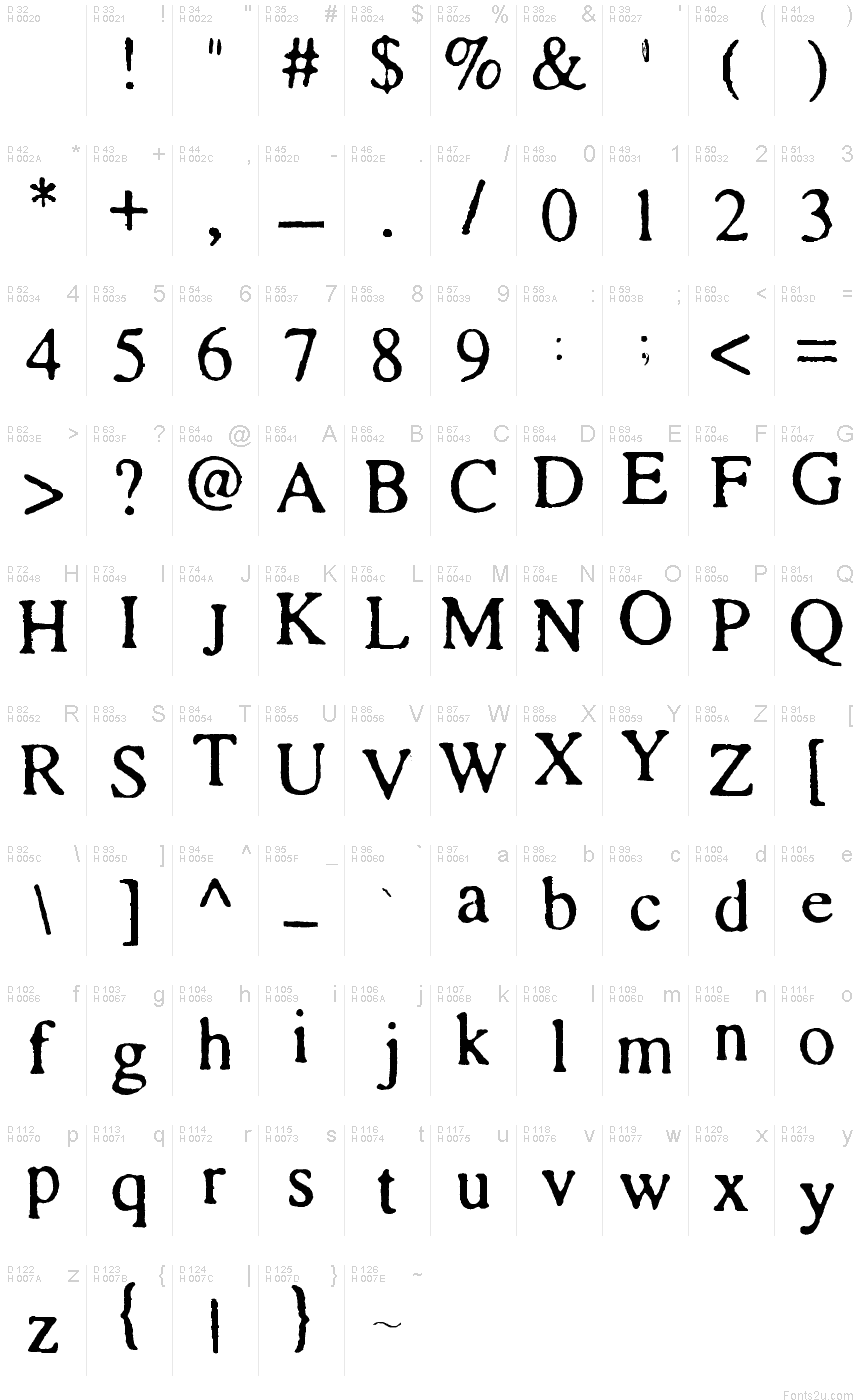
SA Cinta, designed by Shellie Hubbartt in 2003, is a free eroded display font with the uneven bite of worn printing. Its thick-thin strokes, chipped edges, and blunt serifs look distinctly irregular.
The weathered, old-storybook quality and uneven print texture make it especially apt for folk and historical themes. It can lend rough period texture to theatre posters and book jackets, or give album covers and craft beverage packaging a handmade, slightly unruly voice. Across these uses, the broken contours and eccentric proportions make the lettering resemble a printed artifact rather than clean, freshly set type.